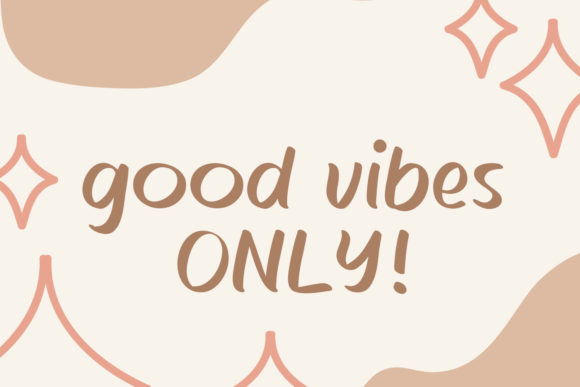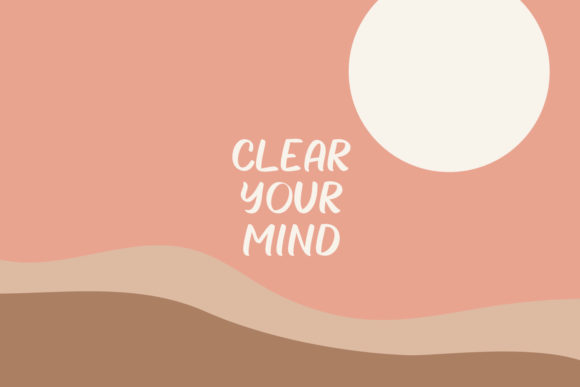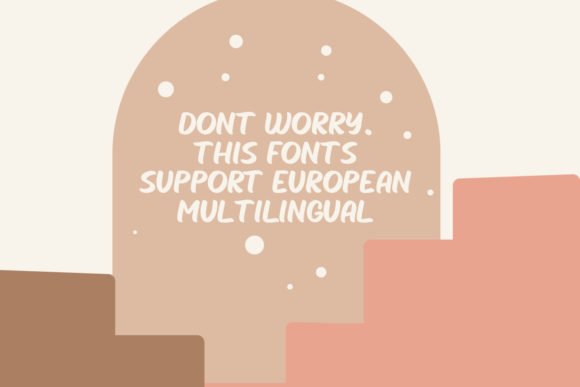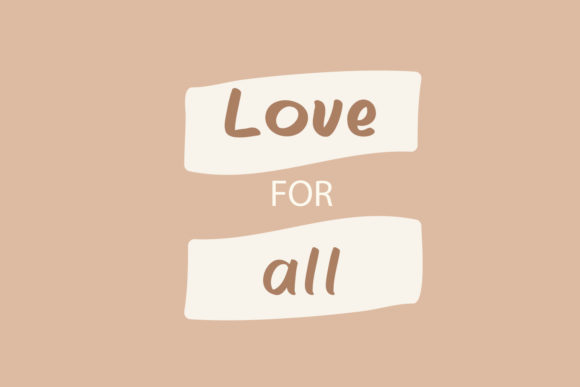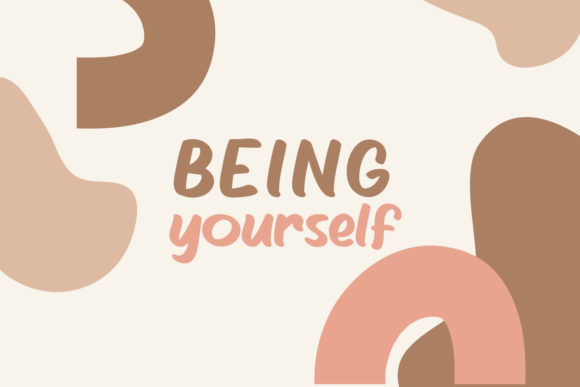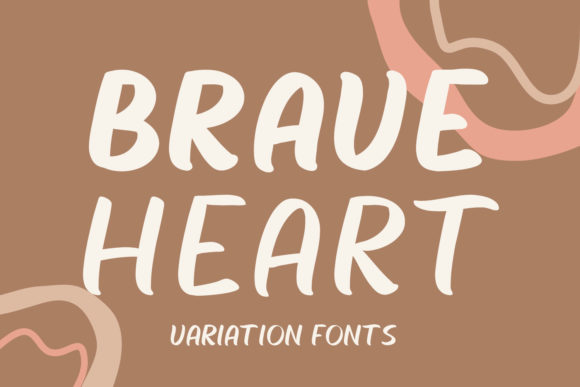
Brave Heart Font: A Cool and Adaptable Handwritten Font for Your Creative Projects
Are you a designer or crafter looking for a font that can add a personal touch to your creations? Look no further than the Brave Heart Font, a cool, adaptable, and paint-brushed handwritten font that’s perfect for a wide range of projects. In this article, we’ll take a closer look at the Brave Heart Font, its features, and how it can enhance your designs.
What is Brave Heart Font?
Brave Heart Font is a unique and stylish handwritten font that’s designed to add a touch of personality to your creations. With its paint-brushed texture and adaptable style, this font is perfect for designers and crafters who want to create unique and eye-catching designs. Whether you’re working on a logo, brochure, or social media post, Brave Heart Font is a wonderful asset to have in your font library.
Key Features of Brave Heart Font
• Cool and Adaptable: Brave Heart Font is designed to be versatile and adaptable, making it perfect for a wide range of projects and designs.
• Paint-Brushed Texture: The font features a unique paint-brushed texture that gives it a handmade and personal feel.
• Handwritten Style: Brave Heart Font is a handwritten font that’s designed to look like it was written with a brush or a pen.
• Easy to Read: Despite its unique texture and style, Brave Heart Font is easy to read and understand, making it perfect for body text and headings.
How to Use Brave Heart Font in Your Designs
Brave Heart Font is a versatile font that can be used in a wide range of designs and projects. Here are a few ideas to get you started:
• Logos and Branding: Use Brave Heart Font to create a unique and memorable logo for your business or brand.
• Social Media Posts: Add a personal touch to your social media posts with Brave Heart Font, perfect for creating eye-catching graphics and quotes.
• Brochures and Flyers: Use Brave Heart Font to add a touch of personality to your marketing materials, such as brochures and flyers.
• Invitations and Cards: Create beautiful and unique invitations and cards with Brave Heart Font, perfect for special occasions and events.
Benefits of Using Brave Heart Font
So why should you choose Brave Heart Font for your designs? Here are just a few benefits of using this amazing font:
• Unique and Eye-Catching: Brave Heart Font is a unique and eye-catching font that’s sure to grab attention.
• Versatile: This font is versatile and adaptable, making it perfect for a wide range of projects and designs.
• High-Quality: This font is high-quality and designed to look great on any device or medium.
Font Name Brave Heart Font
Author Eifets
In conclusion, Brave Heart Font is a cool, adaptable, and paint-brushed handwritten font that’s perfect for designers and crafters who want to add a personal touch to their creations. With its unique texture and style, this font is sure to enhance any design and make it stand out. Whether you’re working on a logo, brochure, or social media post, Brave Heart Font is a wonderful asset to have in your font library.